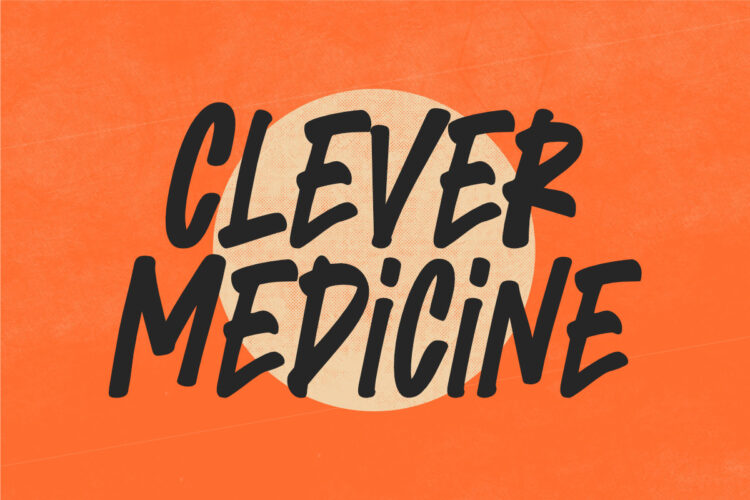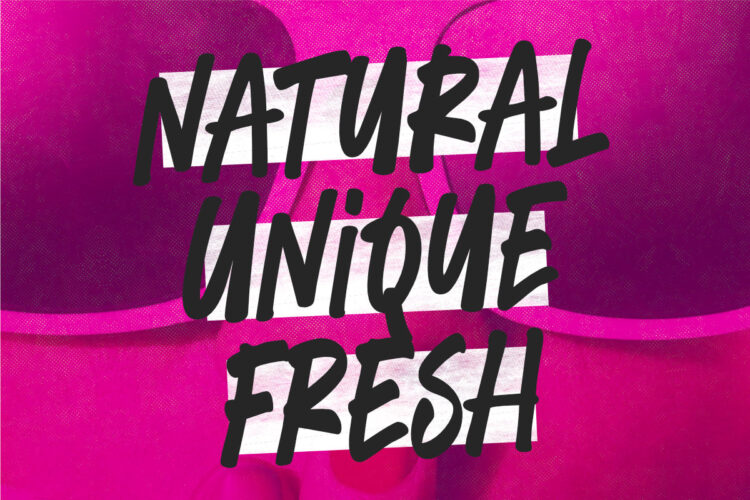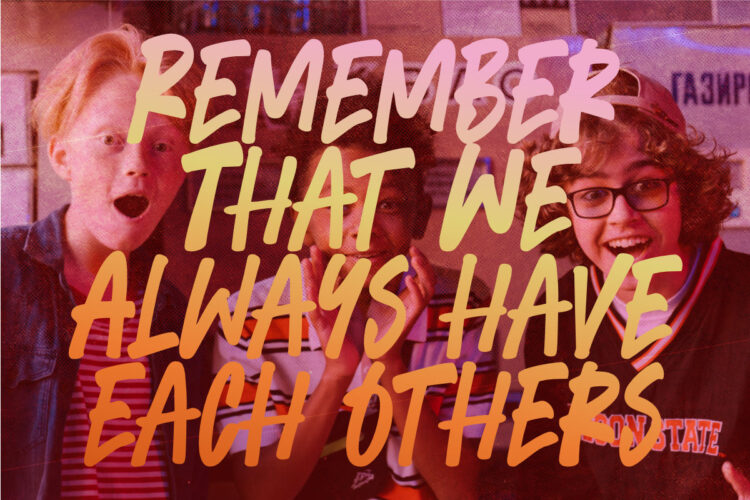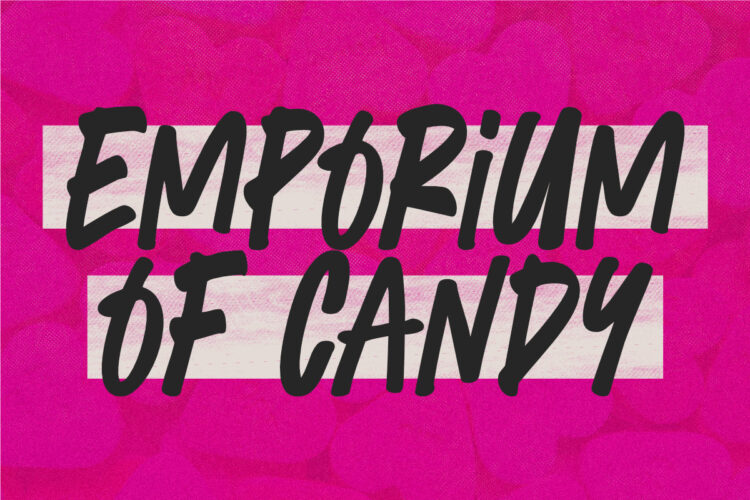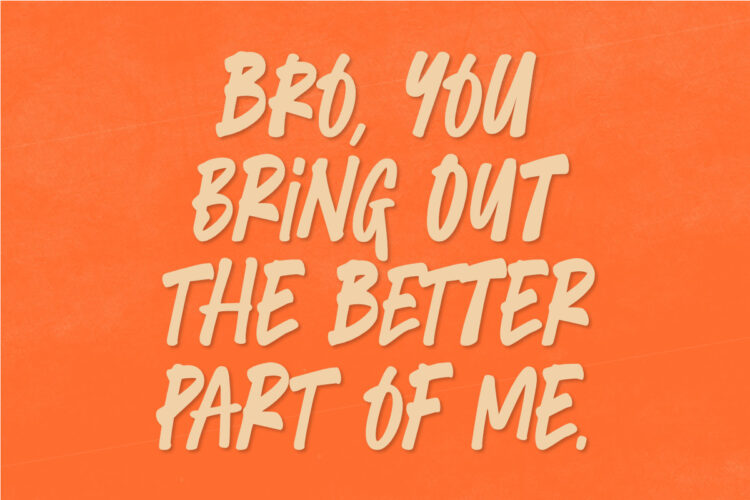
Some words just scream without any explanation needed. Clever Medicine is one of those types of fonts. It’s a hand-drawn brush typeface that feels like it was made with care and precision, just for you and your personal style. Inspired by the idea of natural medicine as something to help you feel better, this typeface has a mysteriously sweet and engaging quality to it. This typeface also has a pronounced vintage appeal that gives it an unmistakable charm no matter what you use this font for; social media posts, signage, posters, headings for your blog—the possibilities are limitless!